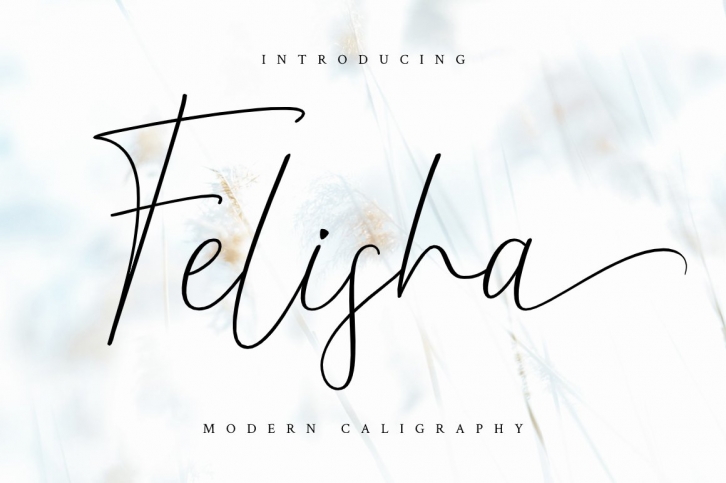
Felisha is a great font that was designed by HaffastudioCr. Imagine the amount of combinations you can create using this font! The archive is 16.62 MB and it was released on June 14, 2020. Felisha looks beautiful on wedding invitations, greeting cards, logos, posters, labels, t-shirt designs, logos, business cards and is perfect for use in ink or watercolor works, fashion, magazines, packaging and food menus, children's books and more!